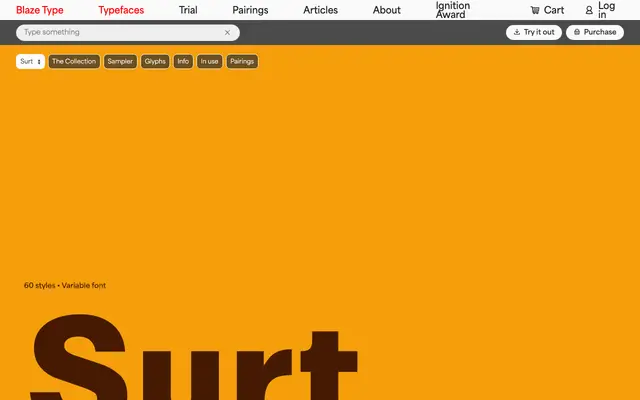
Surt specimen from Blaze Type
A 60-style grotesque sans from Blaze Type spanning three width families and ten weights, with full italic coverage and variable font support.
Surt is structured around three distinct width families: Normal, Expanded and Extended, each running from Thin to Black with matching italics. The 60-style collection is available as a variable font, giving fine-grained control over weight across the width axis. The range suits editorial, identity and display work where consistent width variation is needed across a single type system.
Surt presents as a contemporary grotesque sans-serif with a structured width system across Normal, Expanded and Extended families, consistent with neo-grotesque or geometric grotesque conventions.